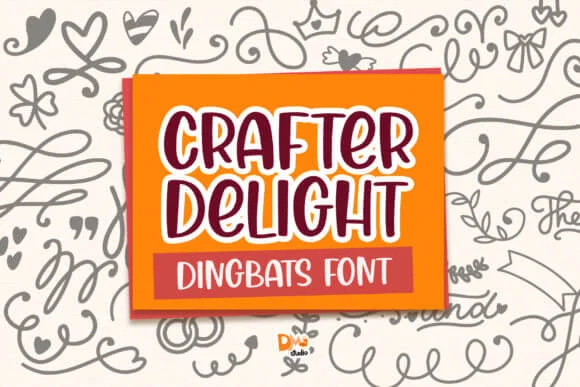
Crafter Delight Font
Crafter Delight Font is perfect for handmade product labels, craft business branding, artisan market signage, DIY blog headers, homemade goods packaging, creative workshop flyers, maker community logos, handcrafted gift tags, craft supply store marketing, and friendly designs that celebrate creativity and the joy of making things by hand.
This font is exciting because it captures the authentic warmth and personal touch of handcrafted creations through charming letterforms that feel genuinely homemade yet professionally polished. The playful character and approachable style perfectly embody the passion and dedication of makers and crafters, creating an instant emotional connection with audiences who appreciate handmade quality and creative expression.
The Crafter Delight Font family typically includes uppercase and lowercase characters, numerals, punctuation marks, decorative elements, and special glyphs that provide versatility for creating cohesive branding across various craft-related projects and handmade business applications.